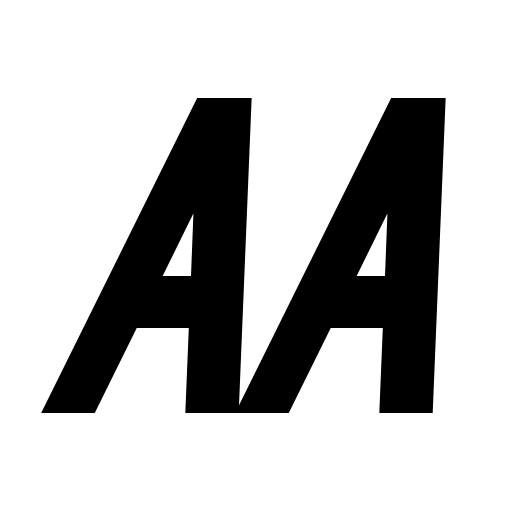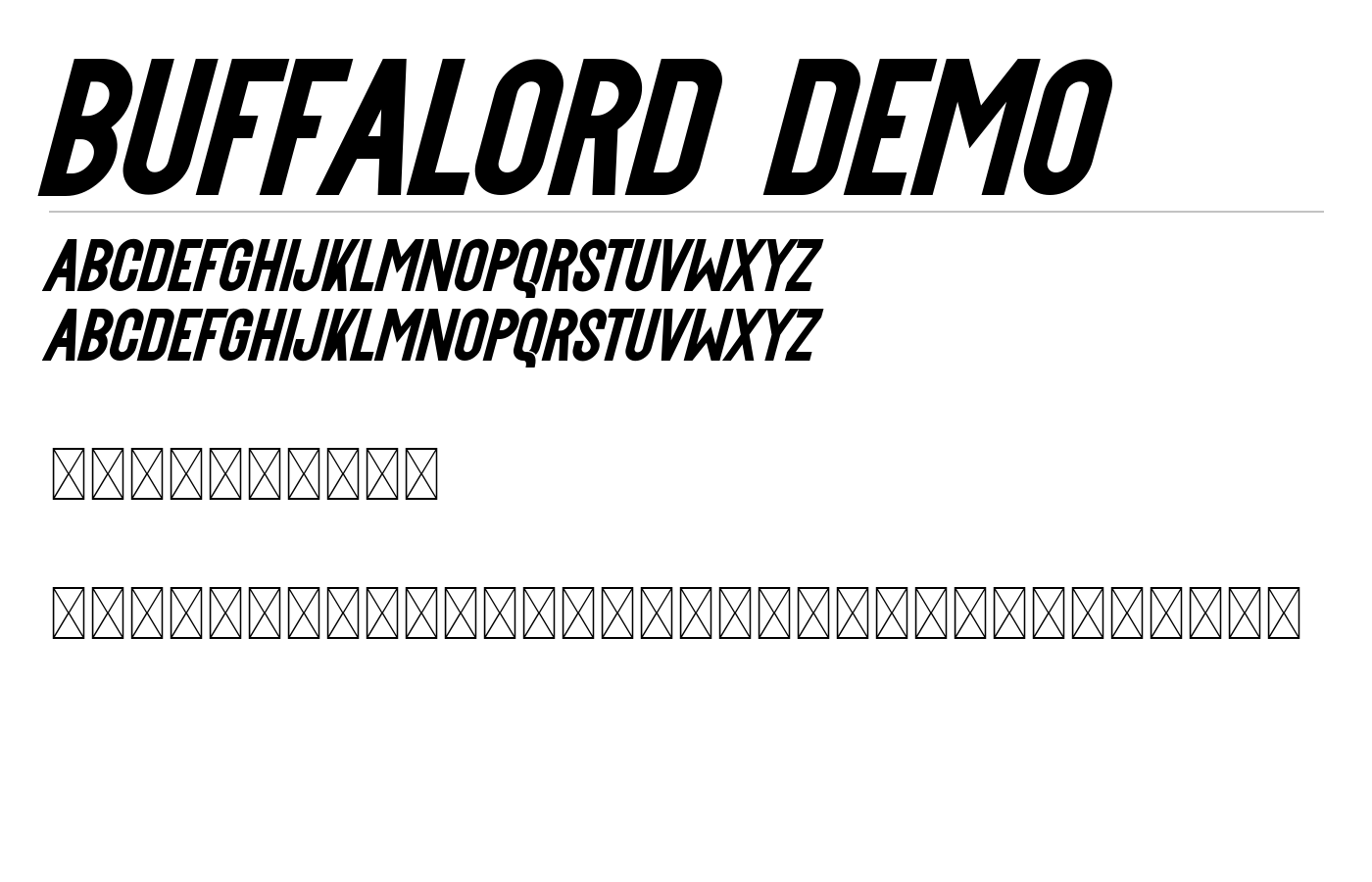
Buffalord Demo is a bold, condensed sans serif font with a strong, dynamic presence thanks to its tall x-height and sharply angled letterforms. Its clean, modern style with slightly geometric strokes makes it ideal for attention-grabbing headlines, sports branding, and contemporary editorial design where impact and readability are key. This font conveys energy and confidence, fitting well in creative projects that demand a sleek, assertive look.
Buffalord Demo Font
About Buffalord Demo Font